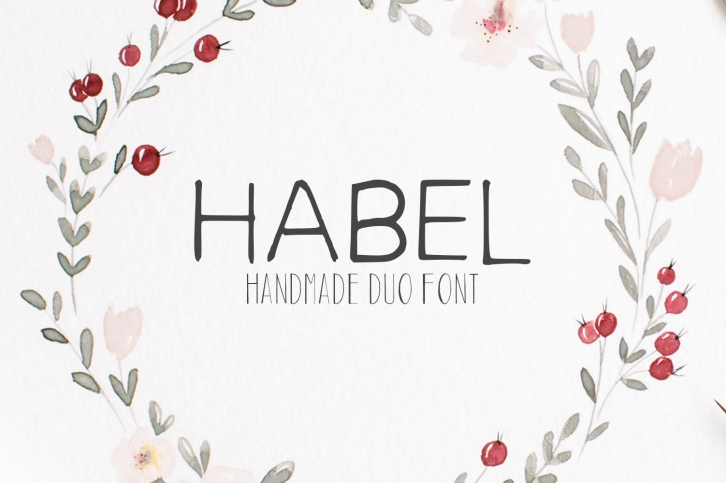
Habel Handmade Duo + Bonus Free is a gorgeous font that was realeased on October 30, 2017. The font can be used in many style contexts and design environments. Perfect for invitations, magazines, websites, logos, and more! It was designed by Creativetacos and the file size is 19.22 MB. Thanks for checking out this font!